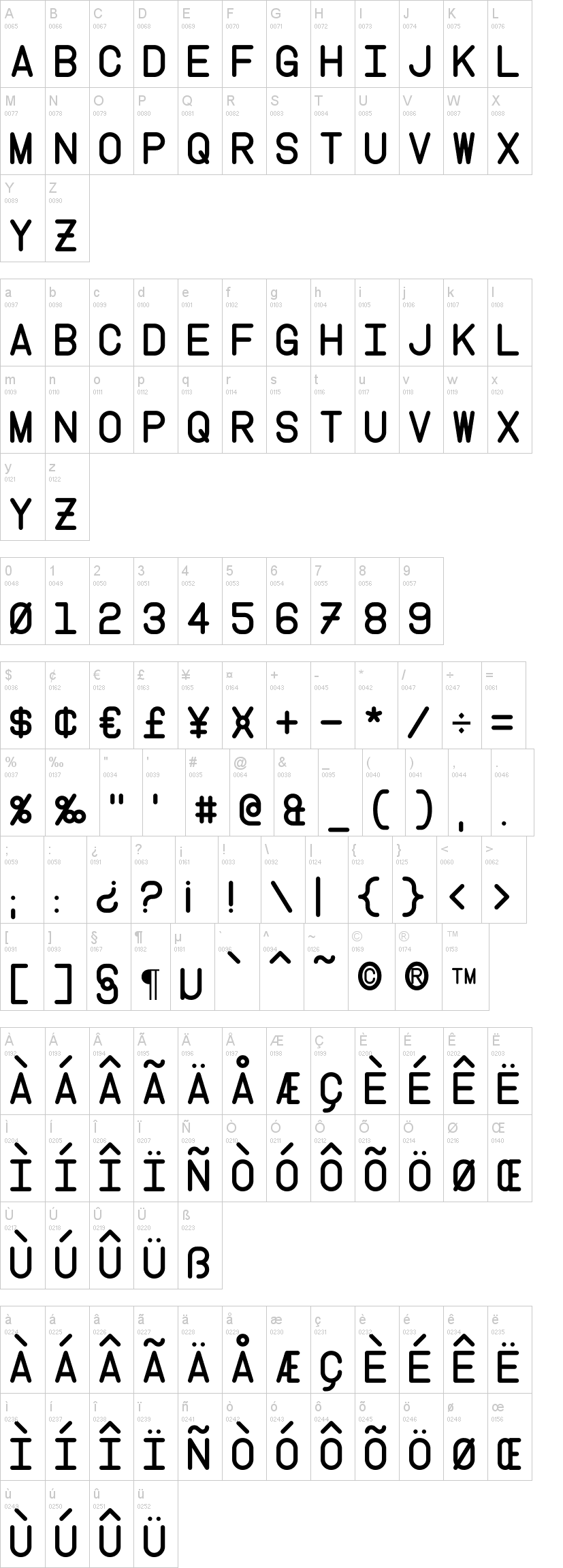
Instruction Italic.otfInstruction Bold.otfInstruction Bold Italic.otfNote of the authorThis font is a simple 'engineering-style' font, monospaced, similar to ones found in technical journals and other 'official documents' from the pulp era. Includes bold and italic versions.